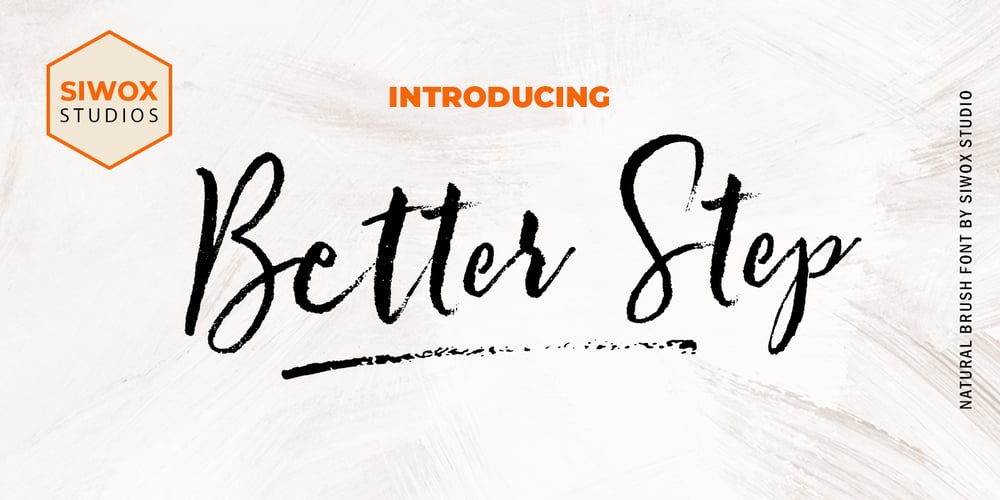
Better Step Font Family was designed by Sarwo Edi and published by Siwox Studios. Better Step contains 1 styles and family package options. Better Step is a handmade font with stunning characters. Made with a brush and high-quality water-based ink. Ideal for name tags, handwritten quotes, product packaging, merchandise, social media, greeting cards, etc. To make your designs look even more naturally handwritten, Better Step has 1 extra set of alternate lowercase letters.